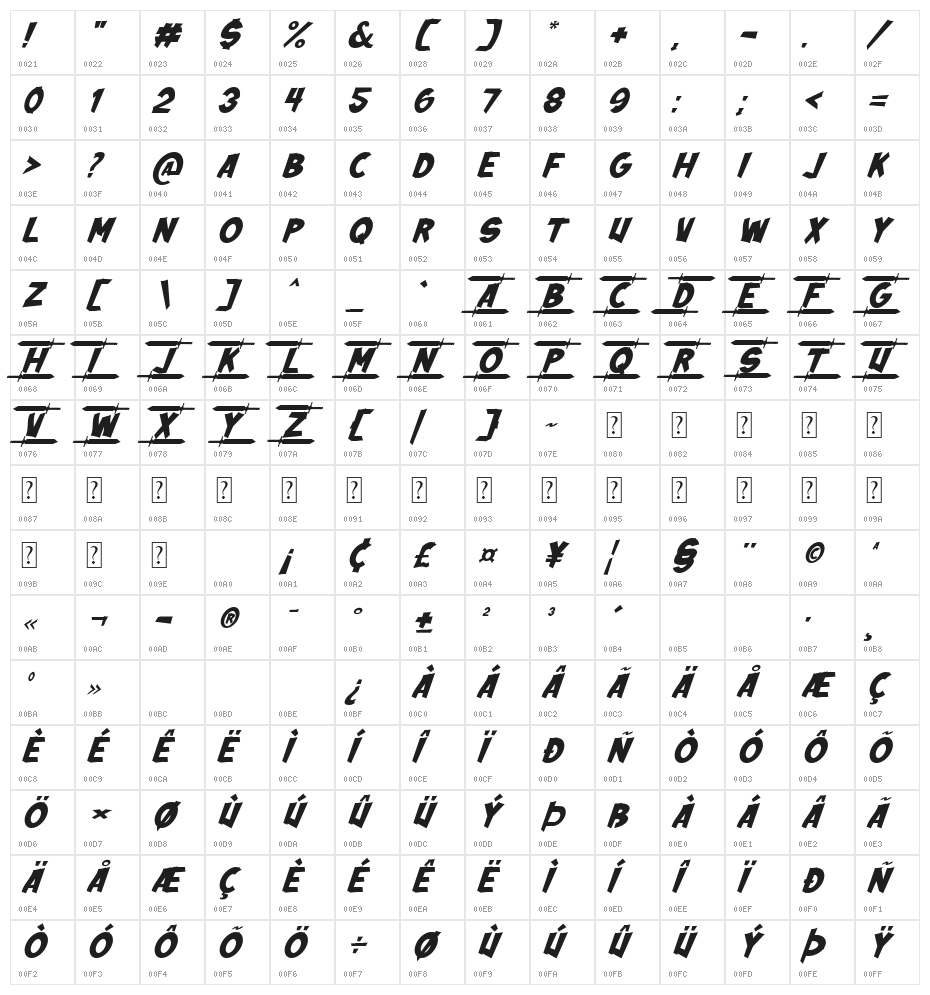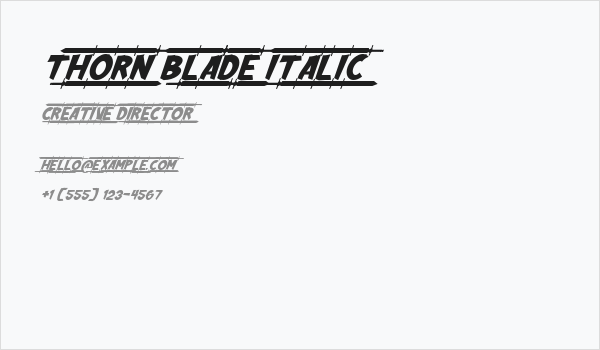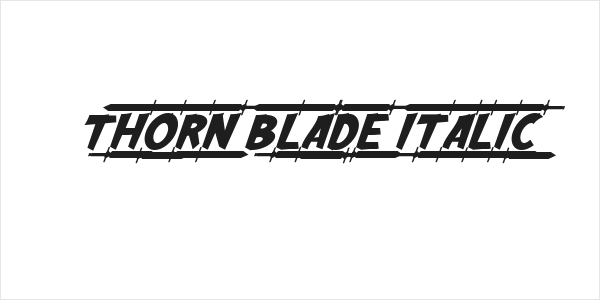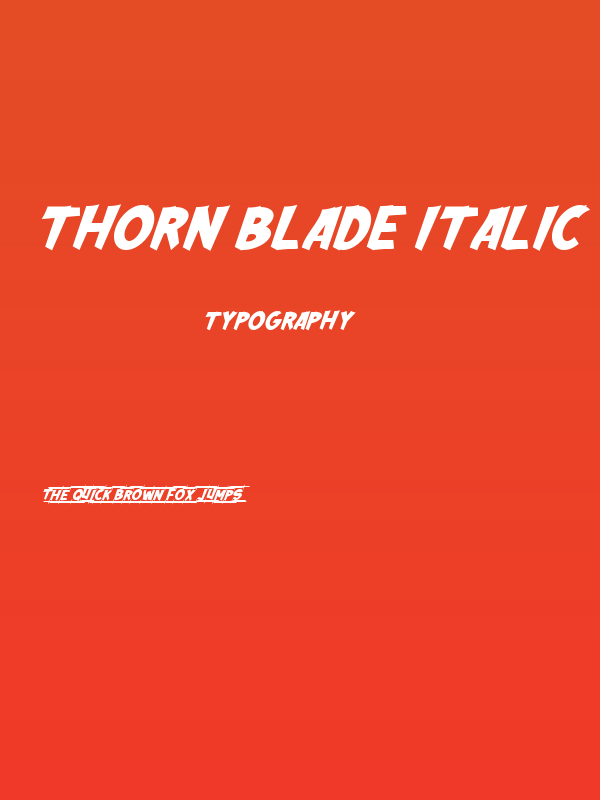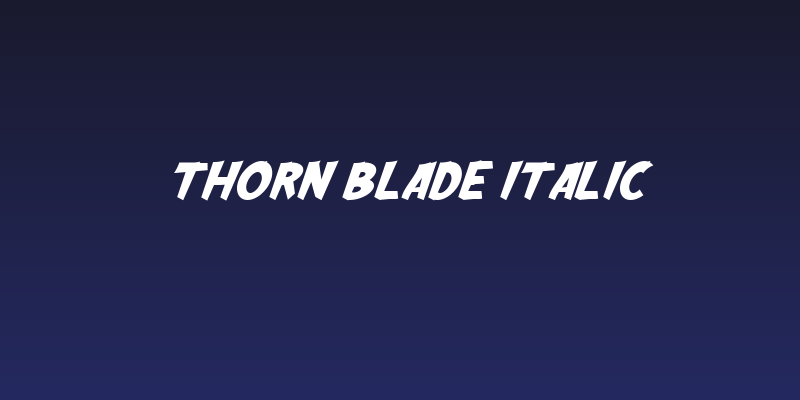
Thorn Blade Italic Font
Thorn Blade Italic Description
This font features a dynamic and aggressive style, characterized by sharp, angular edges and a pronounced italic slant. The bold strokes and jagged lines give it a sense of motion and intensity, making it stand out with a unique flair. The uppercase and lowercase letters maintain a consistent design, with exaggerated angles and a slightly condensed form. Numbers and special characters follow the same stylistic approach, ensuring uniformity across all glyphs. The overall appearance is both modern and edgy, suitable for projects that require a bold statement.
| Overall Style | Modern, Edgy |
| Proposed Projects | Ideal for sports branding, action movie posters, video game titles, and edgy graphic designs. |